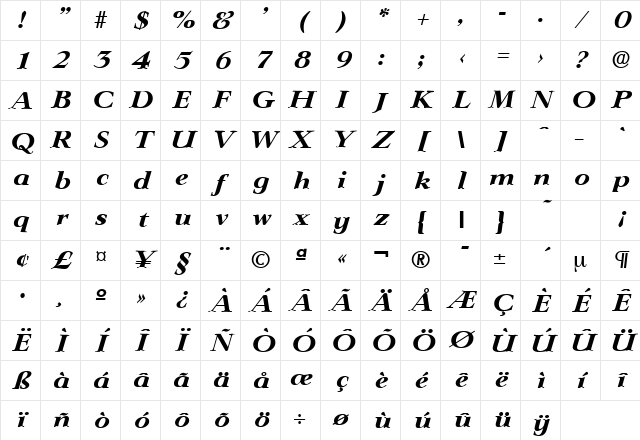
Complete Lingwood-Serial-ExtraBold RegularItalic glyph index. Displaying only characters natively supported by Lingwood-Serial-ExtraBold RegularItalic font.
Lingwood-Serial-ExtraBold echoes the hand-painted signage and woodblock typography of the American frontier, with a warm, rugged personality. The slanted form adds forward momentum and visual energy. Its bold stroke weight gives it real presence on the page.
Font Pairing: Combine Lingwood-Serial-ExtraBold with a simple slab or neutral sans - period-accurate companions reinforce the vintage feel without competing for attention.
Pro Tip: Use Lingwood-Serial-ExtraBold for short, impactful bursts of text - it shines in poster headlines and product names rather than extended copy.